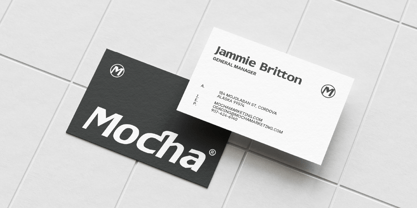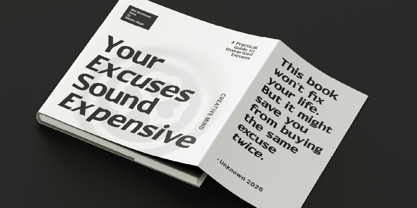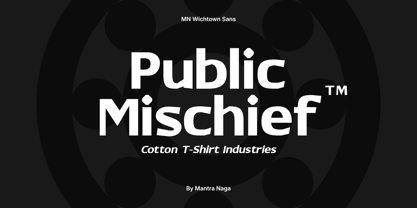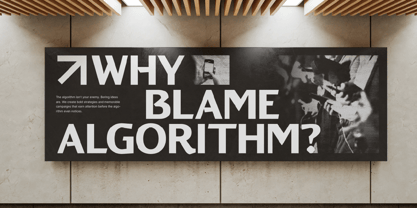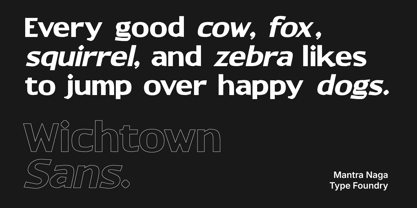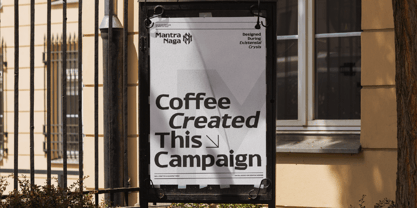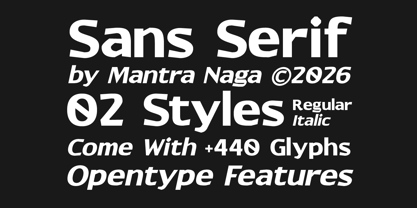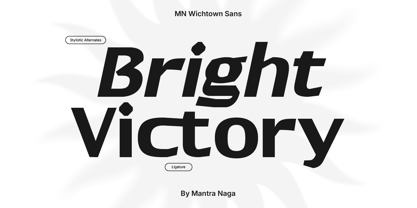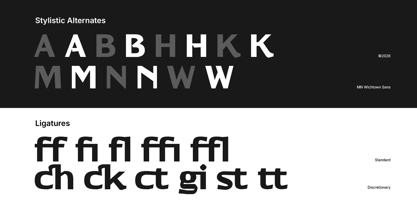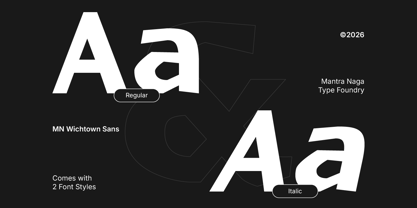
MN Wichtown Sans
by Mantra Naga Studio
The MN Wichtown Sans Font Family was designed by Fredo Eka Pratama and published by Mantra Naga Studio. MN Wichtown Sans contains 2 styles and family package options. More about this family
MN Wichtown Sans is a modern sans serif font with a clean, bold, and distinctive personality. Designed for contemporary visual communication, it combines strong geometric forms with subtle quirks that give the typeface a more memorable character.
With Regular and Italic styles, 440+ glyphs, stylistic alternates, ligatures, and multilingual support, Wichtown Sans is built for branding, logos, editorial design, posters, packaging, advertising, fashion, and modern display typography.
Clean enough for professional identities, distinctive enough for expressive headlines — MN Wichtown Sans brings a confident contemporary voice to your design
Designers: Fredo Eka Pratama
Foundry: Mantra Naga Studio